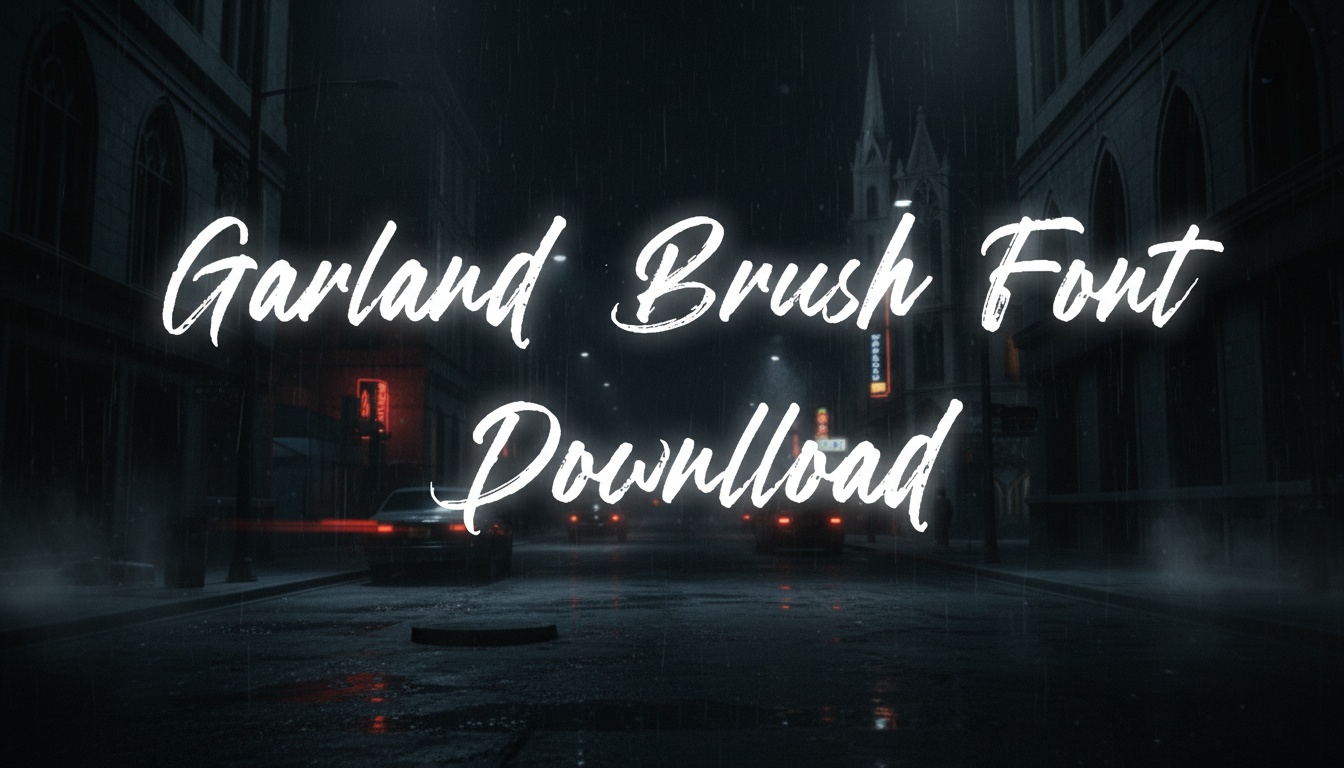
Garland Brush
Garland Brush is a script font made by Pen Culture (2020). Its flowing, pen-made letters give names and short phrases a personal, polished look. It's a free download, and you can try it with your own text in the preview above first.
- Designer: Pen Culture
What You Can Type With Garland Brush
Garland Brush covers the full alphabet in upper and lowercase, plus all ten numbers, so you can set names, dates and prices without switching fonts. Everyday marks like &, !, ? and @ are there too. Thanks to its accented letters, it also works for Spanish, French, German, Portuguese and Italian, not just English.
Where Garland Brush Works Best
Designers usually reach for fonts like Garland Brush when they're making wedding invitations, logos and signature-style headings. The file has no kerning data, so in logos and big titles check pairs like AV, To and Wa and tighten the spacing by hand. Script fonts read best in short bursts, so keep it to names, titles and one-line quotes. Skip all caps: script capitals are drawn to start a word, not to fill one.
Who designed Garland Brush font?
Does Garland Brush support accented letters?
Yes. Garland Brush includes the accented letters needed for Spanish, French, German, Portuguese and Italian, so it works for more than just English.